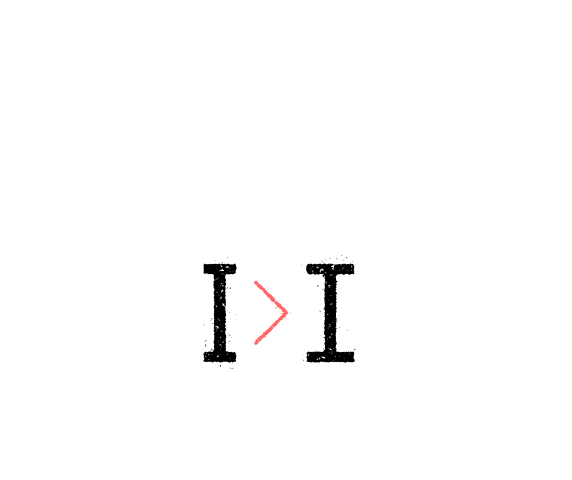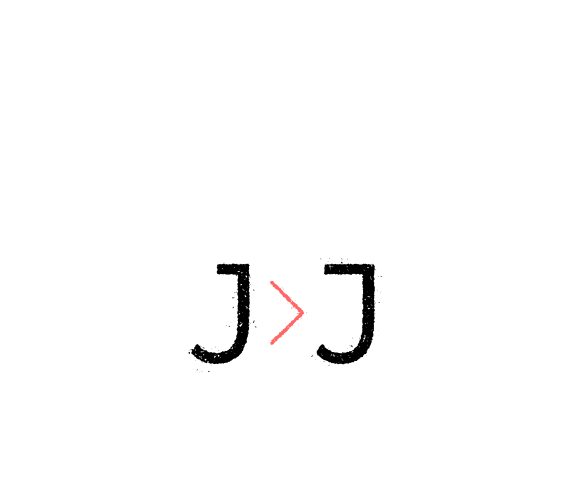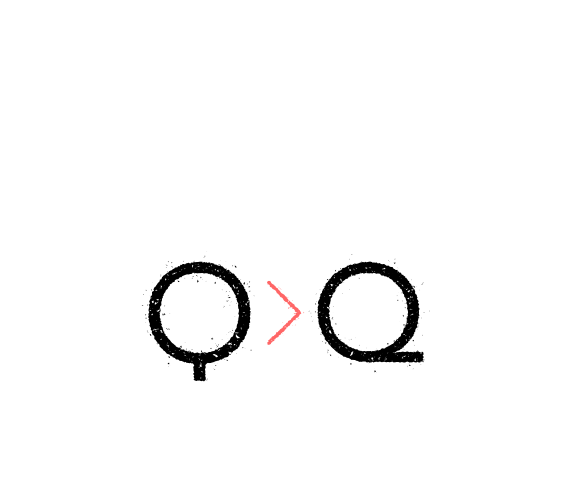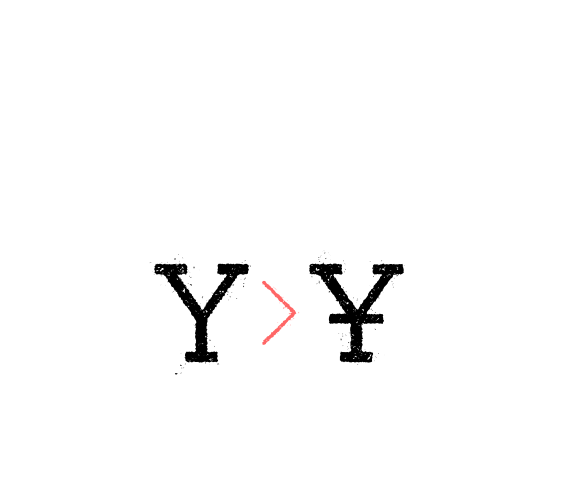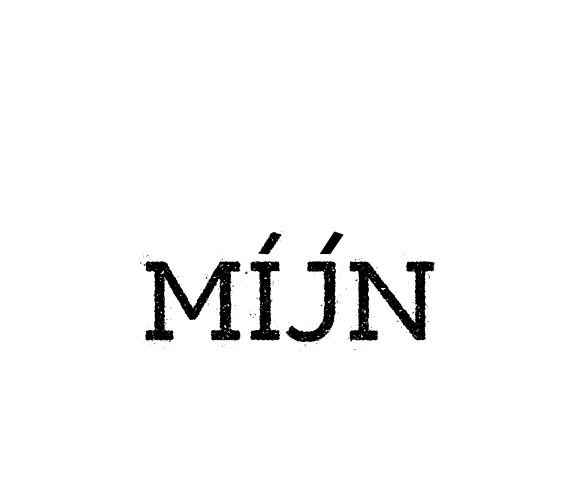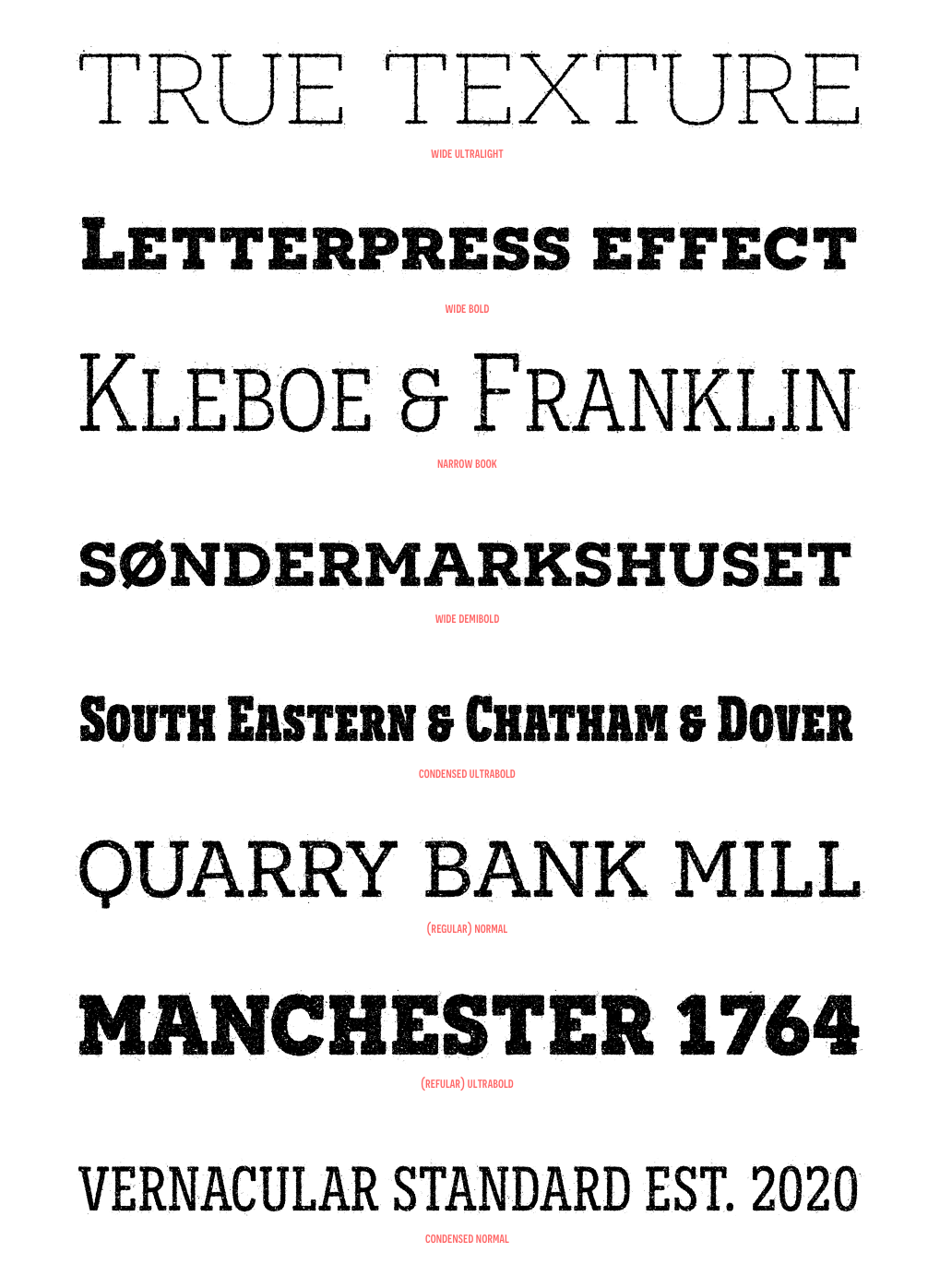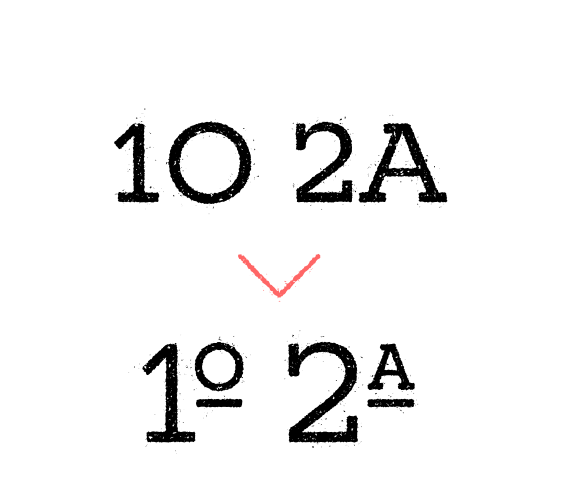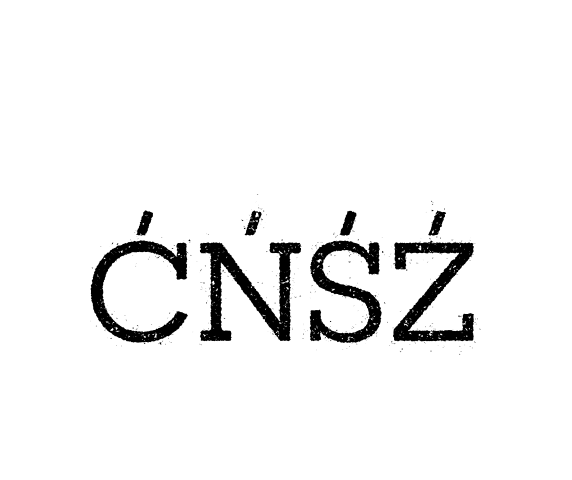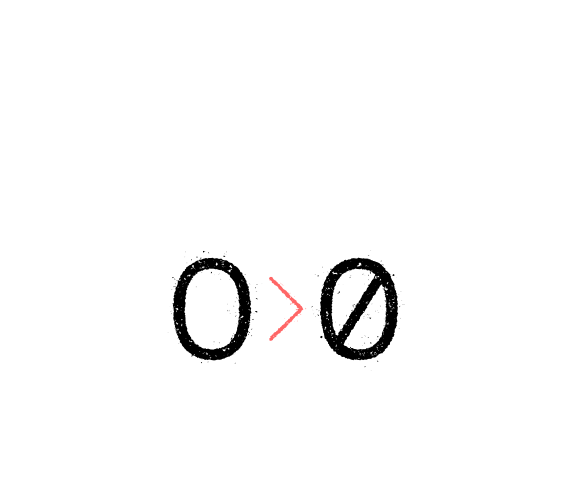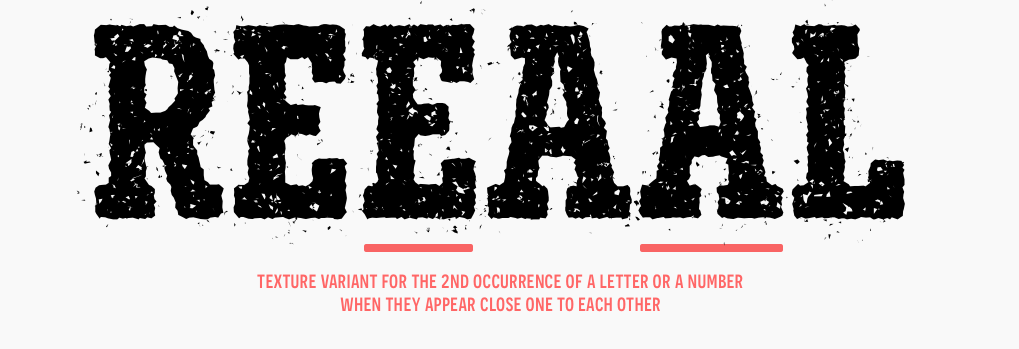
Novecento Slab Rough adds a letterpress / analog effect to its Slab Serif parent. Each letter has a slightly different texture and gives you a truly realistic effect. Even accented variants of any base character are all different.
This font has also a built-in feature that automatically displays a texture variant for the 2nd occurrence of a letter or a number when they appear close one to each other. For instance: AA OO TT ÜÜ. But also: AOA NON TXT etc.
And don't forget alternate glyphs design such as N I J Q Y and all other features present in the Novecento mega family: 32 styles, 76 latin languages supported, 590 glyphs and 16 stylistic opentype features for advanced typography.
![]() Alternate Q (ss01) Alternate Q letter shape for ultra narrow line heights.
Implemented both as Stylistic Set n°1 (ss01) and Stylistic Alternate (salt) to maximize compatibility between applications. |
![]() Alternate N (ss02) Alternate N letter shape. Implemented both as Stylistic Set n°2 (ss02) and Stylistic Alternate (salt) to maximize compatibility between applications. |
![]() Alternate I (ss03) Alternate I letter shape. Implemented both as Stylistic Set n°3 (ss03) and Stylistic Alternate (salt) to maximize compatibility between applications. |
![]() Alternate J (ss04) Alternate J letter shape. Implemented both as Stylistic Set n°4 (ss04) and Stylistic Alternate (salt) to maximize compatibility between applications. |
![]() Alternate Y (ss05) Alternate Y letter shape. Implemented both as Stylistic Set n°5 (ss05) and Stylistic Alternate (salt) to maximize compatibility between applications. |
![]() Slashed zero alternate glyph. Works with tabular and proportional figures, numerators, denominators and superiors. Implemented both as Zero as Salt to maximize compatibility between applications. |
![]() superiors numerators denominators Activates superior, numerator and denominator figures independently. |
![]() Fractions Real fractions from any [number] slash [number] sequence. |
![]() Case sensitive forms Sets All-Caps to activate case sensitive forms: transform lowercase letters, figures and the following signs to Uppercase: ª º : ; · • # ( ) { } [ ] - – — « » ‹ › + − × ÷ = ≠ > < ≥ ≤ ± ~ @ & ¶ © ® ℗ №. |
![]() Ordinals Transforms A or a into ª and O or o into º when following a number. |
![]() Lining & oldstyle figures Lining figures: displays uppercase-aligned variants of figures and of the following glyphs: ª º : ; · • # ( ) { } [ ] - – — « » ‹ › + − × ÷ = ≠ > < ≥ ≤ ± ~ @ & ¶ © ® ℗ №
Oldstyle figures: displays lowercas (default) figures and glyphs. |
![]() tabular figures & symbols Makes numbers, monetary and math symbols to get the same width, also across different weights. Great for table layouts. |
Novecento Slab Rough uses the power of Opentype to overstep the current technical limitations, enriching the typesetting experience in a totally automated way. Just set your text language to activate the associated helpers.
![]() german uppercase eszett German language helper. German “Sharp S” cannot be typed on most keyboard layouts. This helper detects when an “ß” is among uppercases and transforms it into its uppercase version. This helper is associated with the “contextual alternates” OT feature and it is often activated by default. |
![]() turkish idotaccent Turkish language helper. It correctly differentiates capital i and dotless-i. Just set your text language to Turkish to show a dot on the capital i. |
![]() polish kreska Polish language helper. It allows to display the correct diacritics (kreska’s angle differs from the acute diacritic). Just set your text language as Polish to convert acute into kreska. |
![]() catalan punt volat Catalan language helper. It helps displaying the correct punt volant (Ldot sign) when typing the “l” letter followed by the vertically centered dot. Just set your text language to Catalan to activate the l· helper. |
![]() dutch double acute ij Dutch language helper. While an accented j does not exist as a glyph on its own, this helper adds an acute accent on the j (or J) when it is following and accented i (í). |
![]() moldavian & romanian dicritics Moldavian & Romanian language helper. It allows to display the correct diacritics. Just set your text language as Moldavian or Romanian to convert cedilla into comma-accent. |